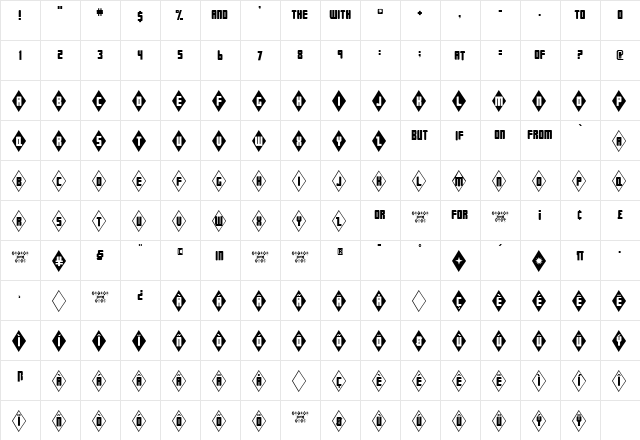
JetAgeLoFi Medium
Design Context for JetAgeLoFi Typeface
JetAgeLoFi is a composed and adaptable typeface that performs quietly and consistently across a wide range of design contexts.
Pro Tip: Use JetAgeLoFi in both headline and body roles to test its range before committing to a single application.